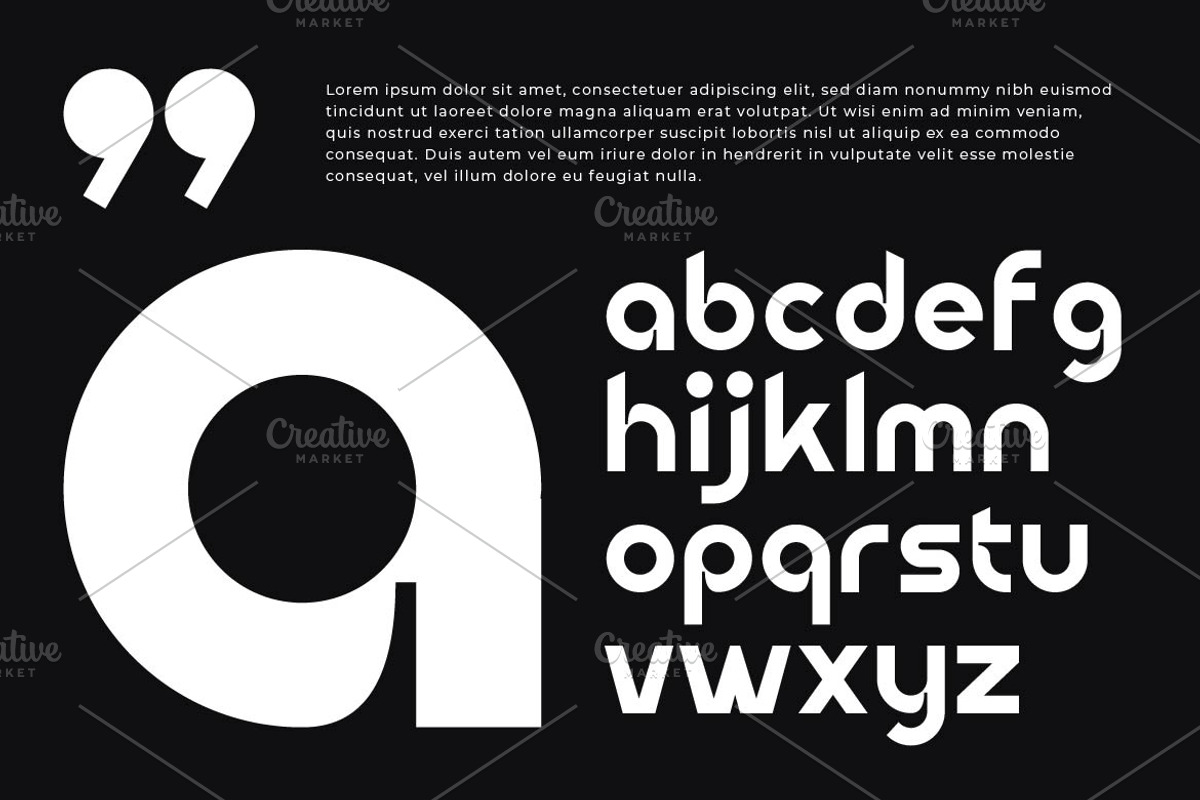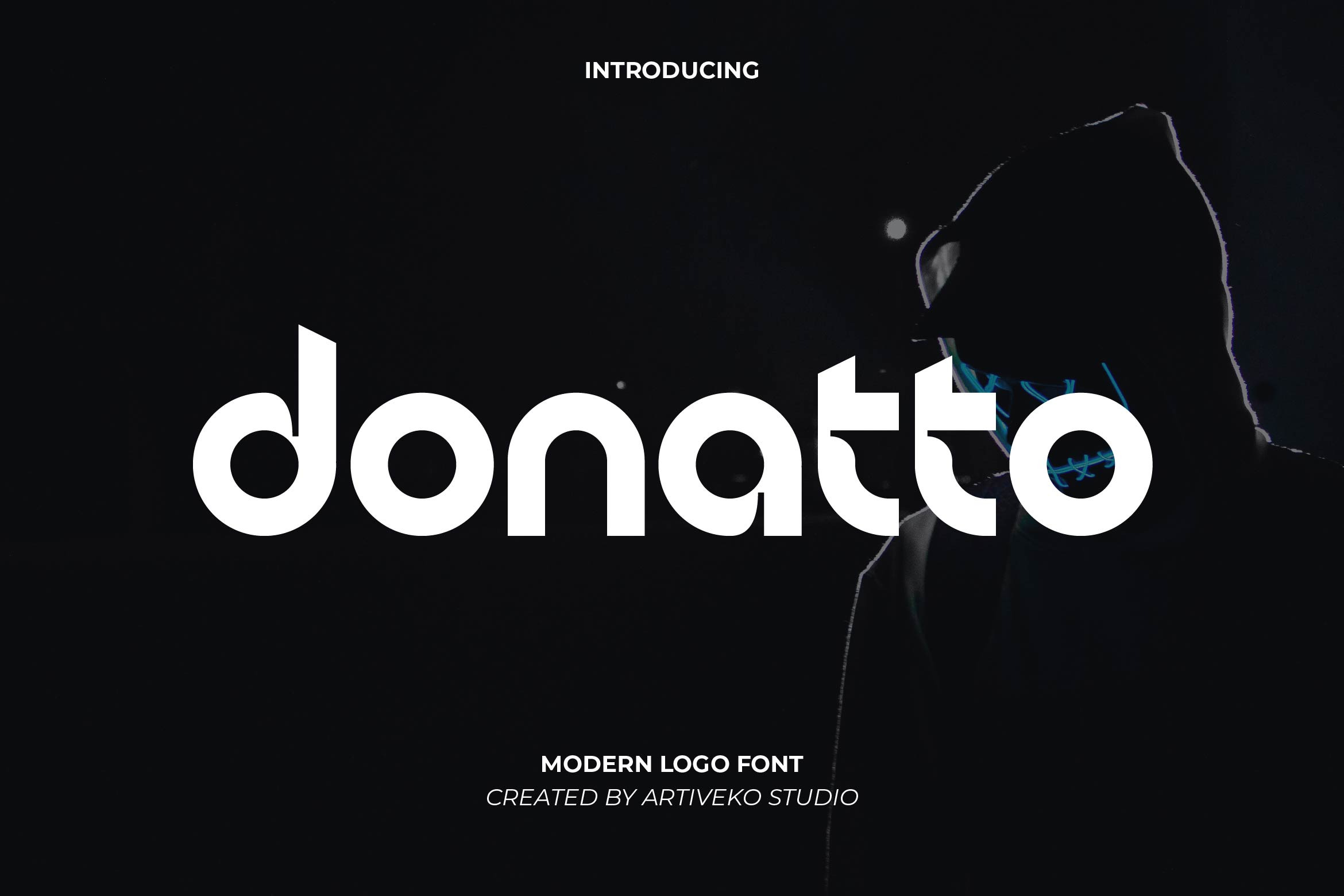
Donatto Logo Font
Donatto is a modern logo font designed with sleek, distinctive letterforms that make a bold statement. Perfect for branding, corporate identities, luxury packaging, and high-end design projects, Donatto combines elegance with a contemporary edge. Featuring multilingual support, ligatures, and alternates, this versatile typeface ensures a refined and professional look, making it the ideal choice for logos that demand uniqueness and sophistication.